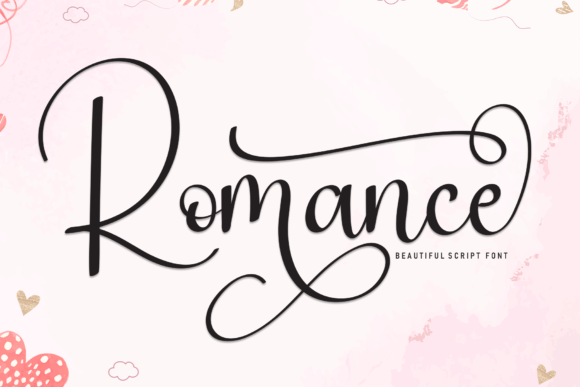
Step into the enchanting world of Romance Font, a calligraphy script that captivates with its ethereal elegance and delicate charm. This exquisite font oozes sophistication and charm, making it an ideal choice for creating stunning wedding invitations, heartfelt cards, and any project that demands a touch of heartfelt emotion.
Romance Font's carefully crafted curves and graceful swashes evoke a sense of timeless beauty. Each letter is lovingly rendered to exude elegance, ensuring your designs radiate an aura of refinement. Whether you're a seasoned designer or just starting, Romance Font will effortlessly elevate your work, adding a layer of sophistication and artistry.
Indulge in the versatility of Romance Font as it harmoniously complements a myriad of creative endeavors. Its delicate lines add a romantic touch to wedding invitations, menus, and love letters. Embellish your social media posts, blog designs, and marketing materials with Romance Font's enchanting flair. It's perfect for creating logos, branding materials, and packaging that exude a timeless, classic appeal. The possibilities are endless, allowing you to unleash your creativity and captivate your audience with captivating designs.
With Romance Font, you'll embark on a journey of self-expression, transforming your creative vision into enchanting realities. Its effortless flow and elegant style will elevate your designs, adding a touch of romance and wonder to every project. So, let your imagination soar and experience the magic of Romance Font today!